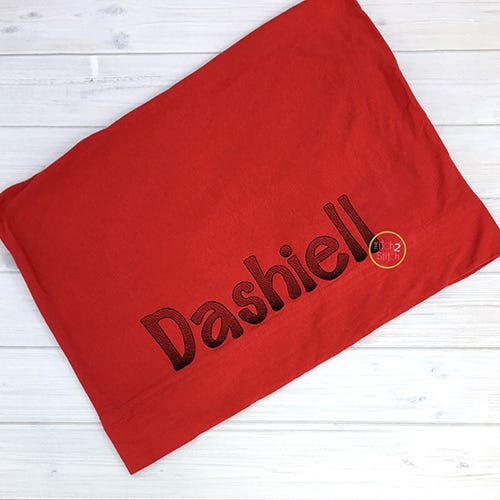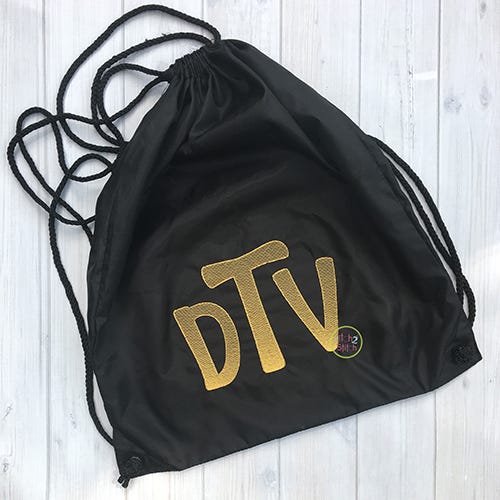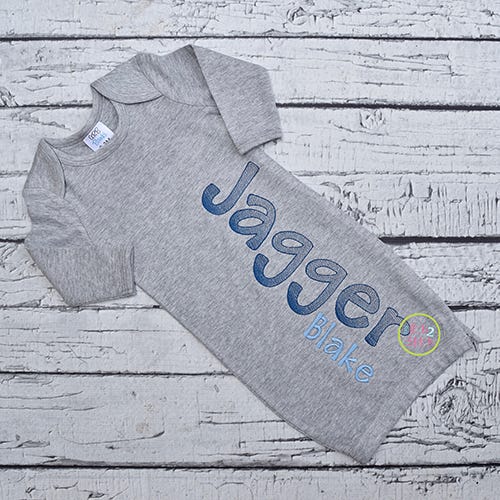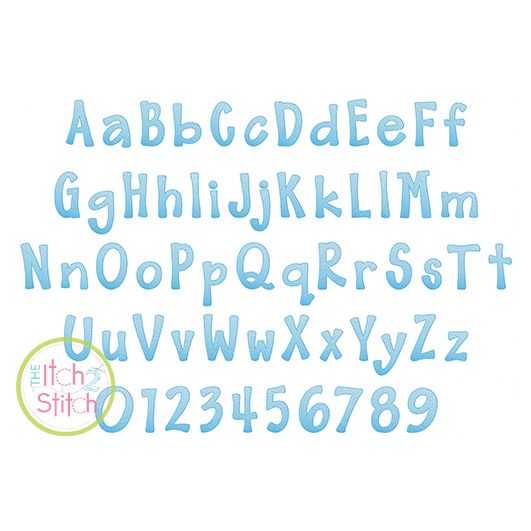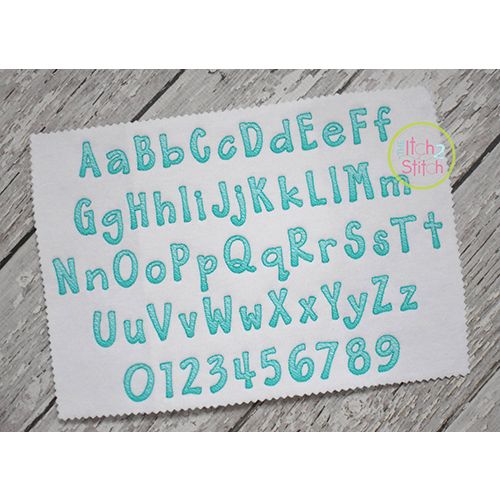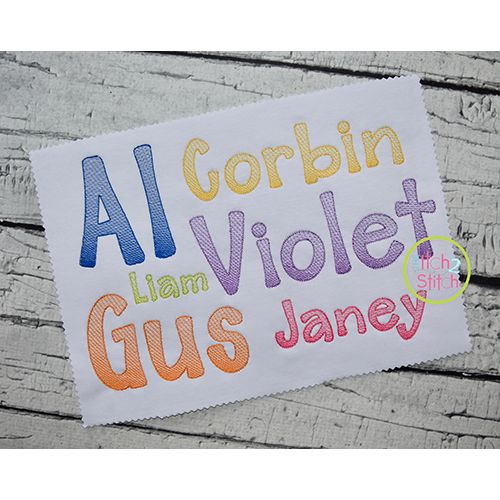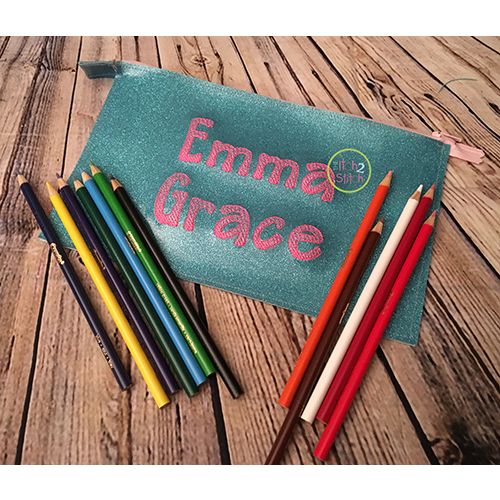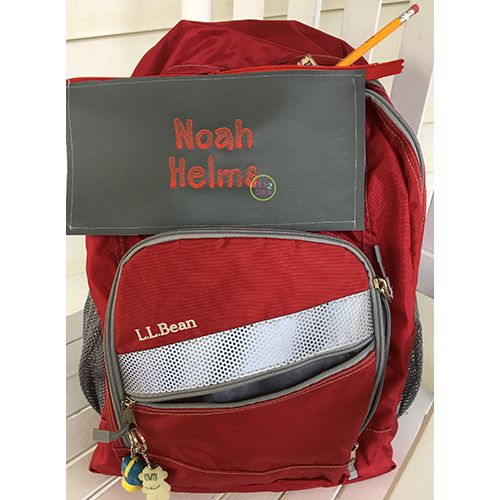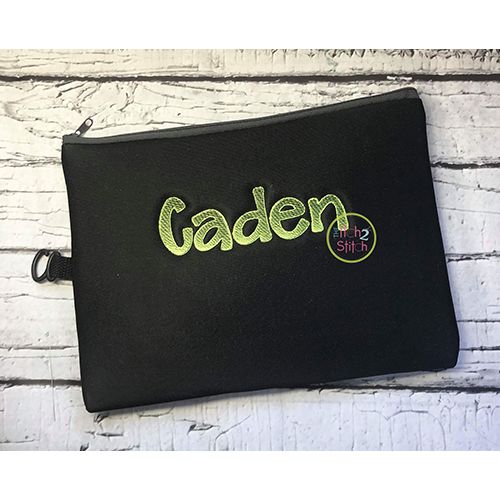
Barnyard Sketch Embroidery Font
Please note this is not applique, nor is it a traditional satin or fill stitch font. The light and airy "sketch" fill pattern allows for a quick stitch out. The space between each line of stitching varies such that it is more dense at the bottom than the top of each letter to create the shading effect. The letter is finished off with a triple bean stitch outline. We do not recommend resizing this font in software. Small satin stitch sizes are sold separately.